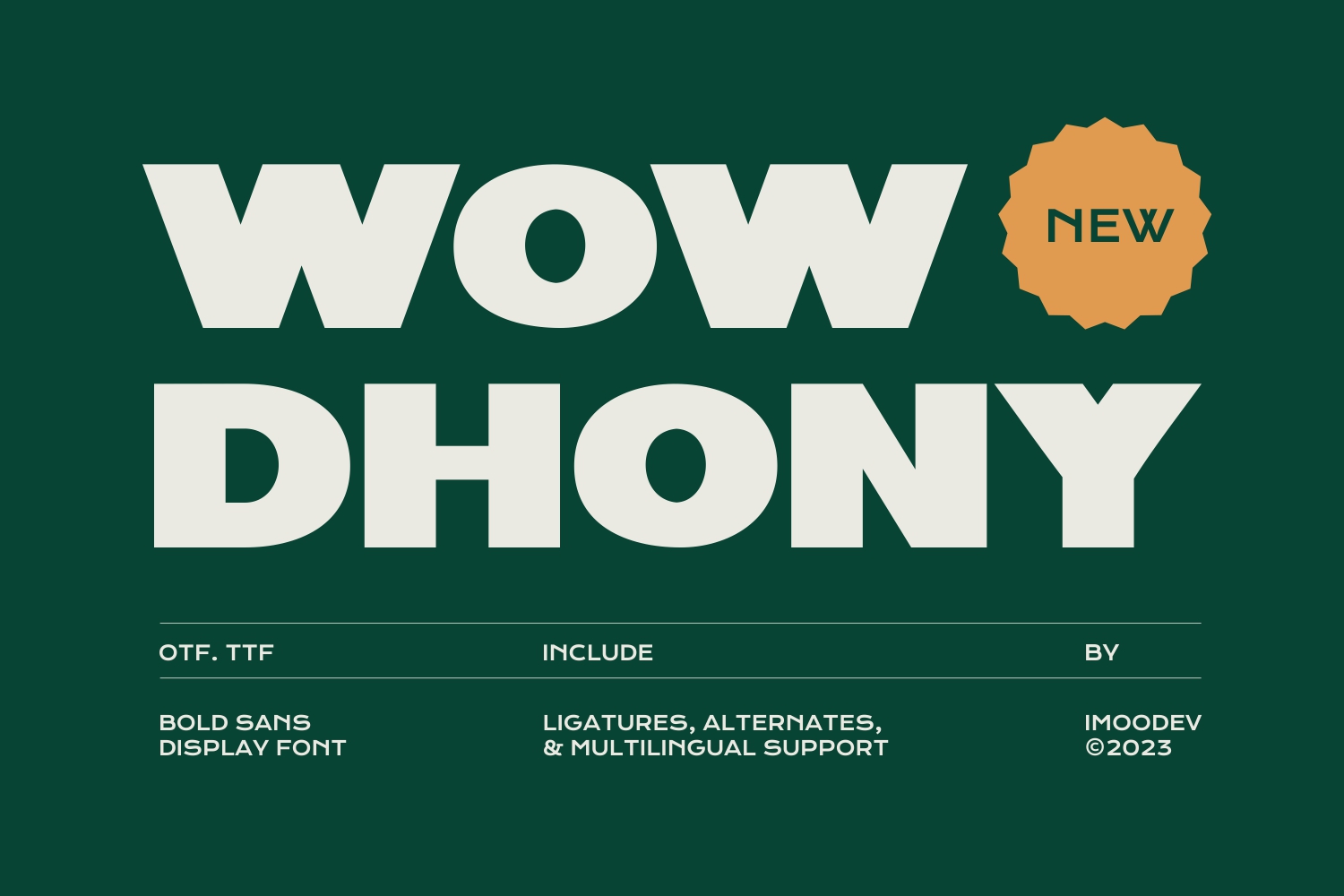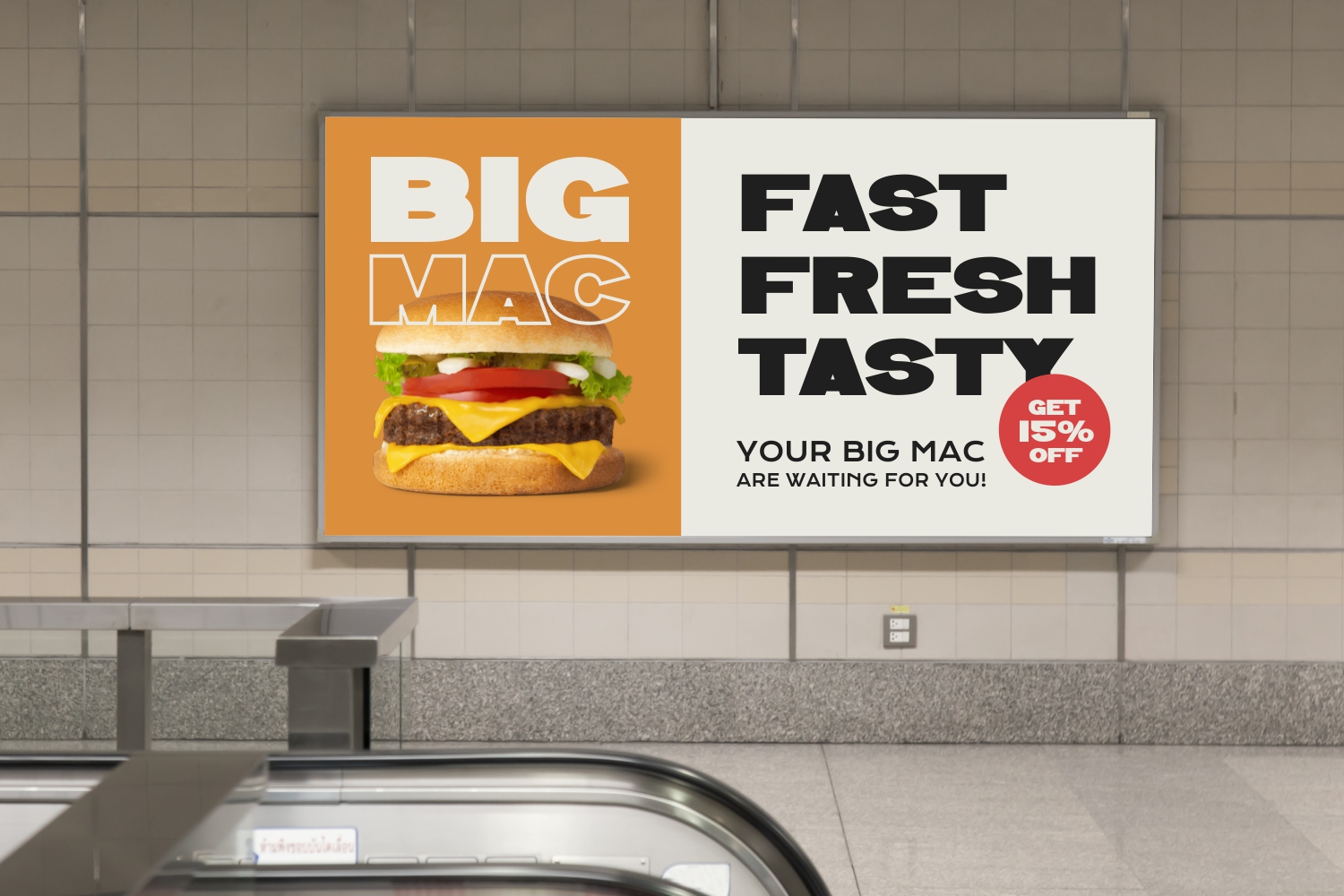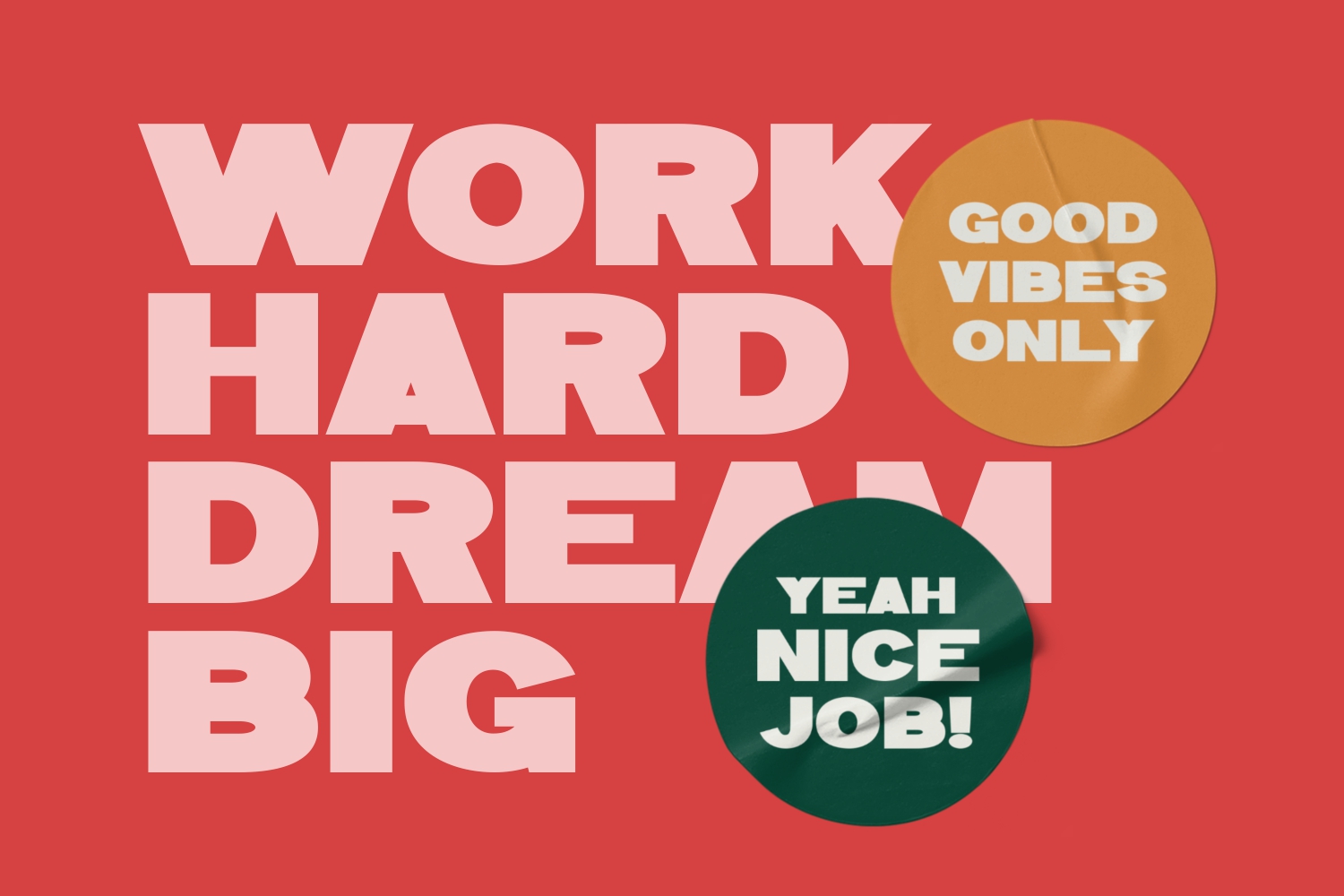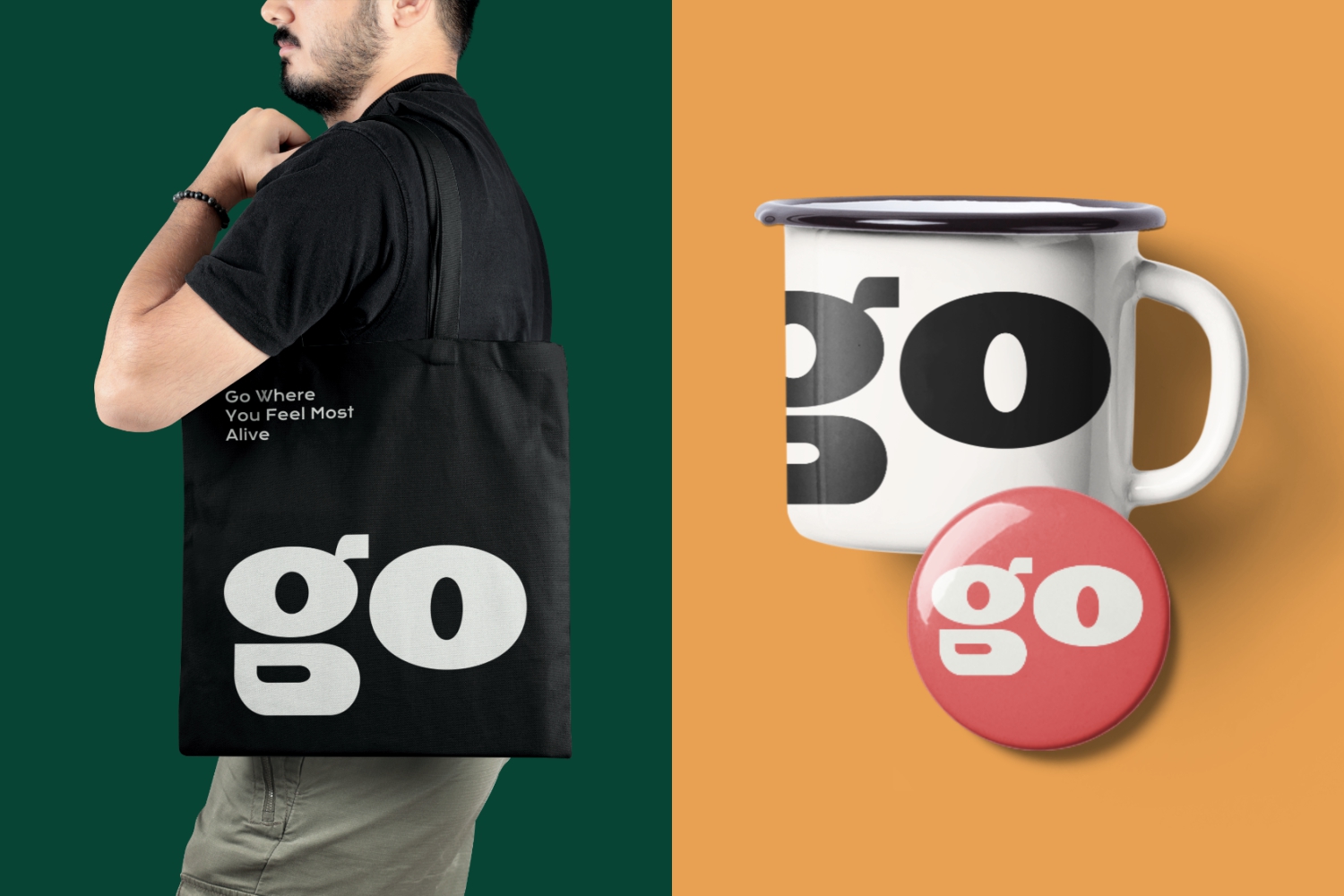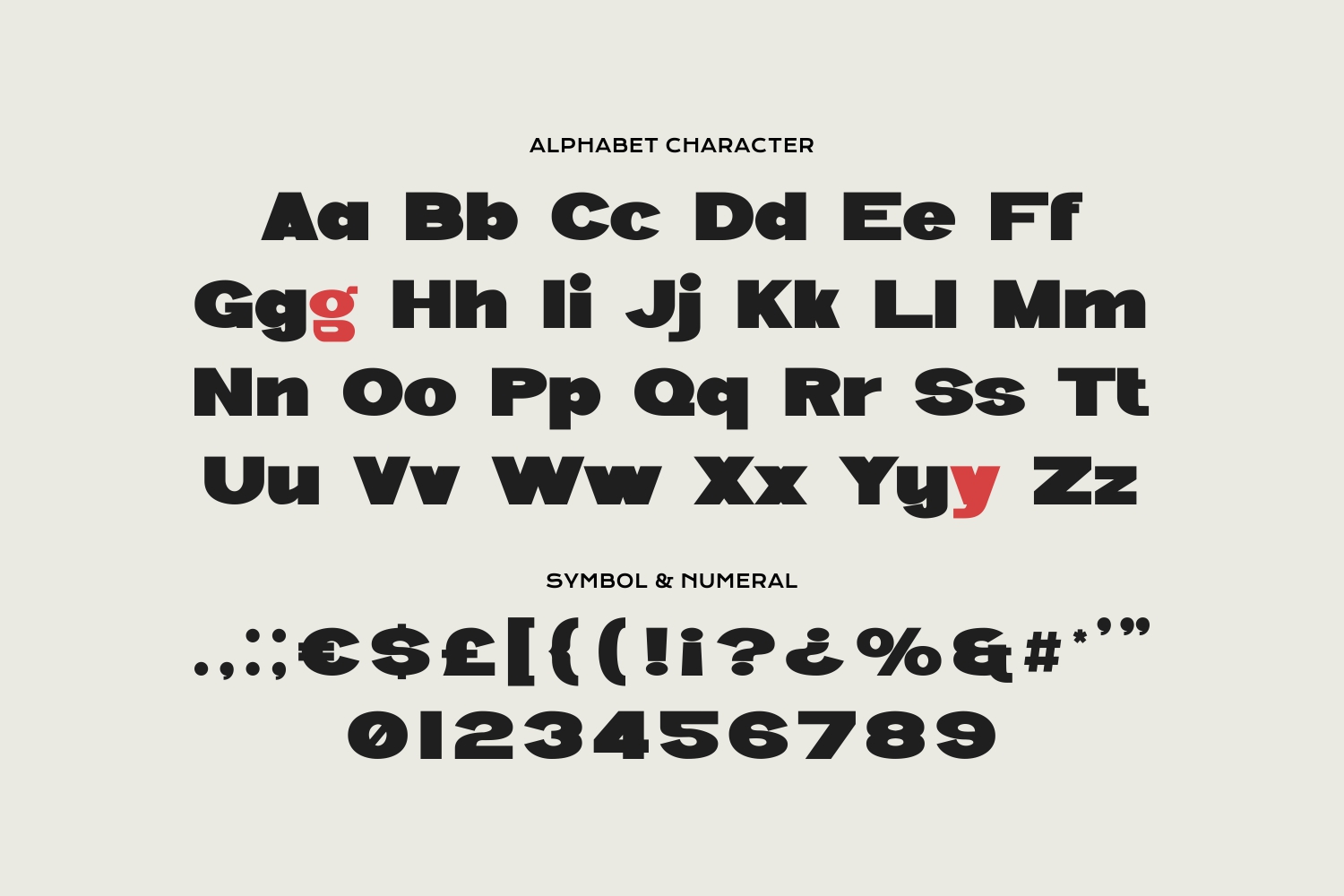
Wow Dhony is a bold sans display font that brings power, clarity, and modern aesthetics into every design. Its thick and confident letterforms make it perfect for impactful headlines, posters, packaging, and branding projects. The balance between sharp edges and clean curves gives this font a versatile and professional look, ensuring it stands out while remaining highly legible.
Equipped with alternates, ligatures, symbols, and multilingual support, Wow Dhony offers designers the flexibility to create unique and expressive layouts. Whether for advertising campaigns, merchandise, editorial titles, or digital content, this typeface delivers a strong visual presence. Its bold and modern style ensures your message is not just seen, but remembered.
Wow Dhony